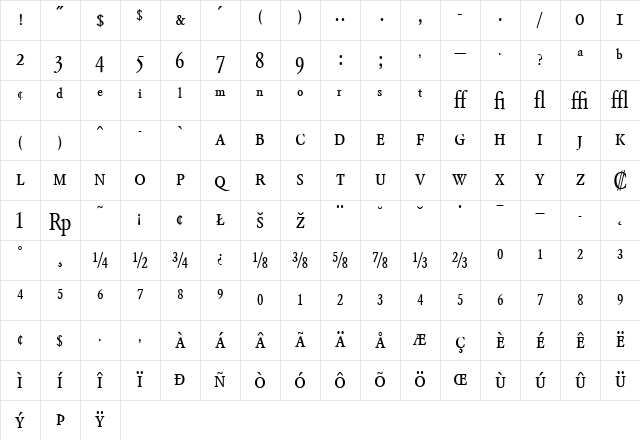
Complete GaramondBEExpert-Condensed Roman glyph index. Displaying only characters natively supported by GaramondBEExpert-Condensed Roman font.
GaramondBEExpert-Condensed is a composed and adaptable typeface that performs quietly and consistently across a wide range of design contexts. Its narrow stance lets it pack a punch even in space-constrained designs.
A practical choice for tight layouts, multi-column editorial design, and space-efficient signage.